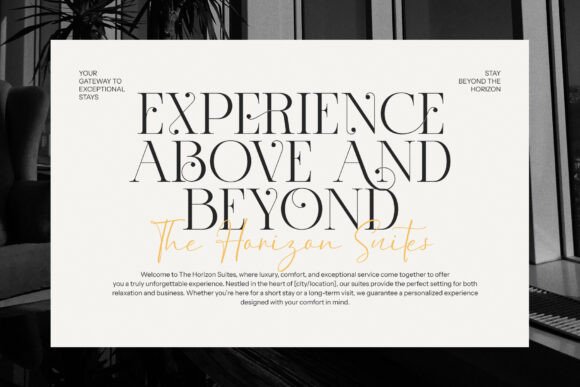
Introducing Frane Rhiger Font: The Epitome of Modern Sophistication and Timeless Elegance
In the world of typography, a font can make or break the visual appeal of a project. For designers seeking a typeface that embodies modern sophistication and timeless elegance, Frane Rhiger Font is an exceptional choice. This beautifully crafted serif font is designed to make your projects stand out with unparalleled style, making it perfect for luxury branding, high-end logos, and polished editorial layouts.
The Design Philosophy Behind Frane Rhiger
Frane Rhiger is more than just a font – it’s a masterclass in typographic design. Each letter is thoughtfully balanced, blending clean lines with subtle details to create a font that feels both refined and approachable. The design philosophy behind Frane Rhiger is centered around creating a typeface that exudes class and professionalism, while also being versatile enough to adapt to any medium.
One of the standout features of Frane Rhiger is its exquisite ligatures and graceful alternate forms. These elements add a layer of sophistication to any project, making it perfect for designers seeking to create high-end branding, logos, and editorial layouts. The ligatures and alternate forms also provide a level of customization, allowing designers to tailor the font to their specific needs.
The Characteristics of Frane Rhiger Font
So, what makes Frane Rhiger Font so unique? Here are some of its key characteristics:
- Serif Font: Frane Rhiger is a serif font, which means it features small lines or flourishes at the ends of the letters. This gives the font a classic, timeless feel that’s perfect for luxury branding and editorial layouts.
- Exquisite Ligatures: The ligatures in Frane Rhiger are truly exquisite, adding a level of sophistication to any project.
- Graceful Alternate Forms: The alternate forms in Frane Rhiger provide a level of customization, allowing designers to tailor the font to their specific needs.
- Clean Lines: The clean lines in Frane Rhiger create a sense of modernity and sophistication, making it perfect for high-end branding and logos.
- Subtle Details: The subtle details in Frane Rhiger add a level of depth and complexity to the font, making it perfect for polished editorial layouts.
Perfect for Luxury Branding and Editorial Layouts
Frane Rhiger Font is perfect for luxury branding, high-end logos, and polished editorial layouts. The font’s classic, timeless feel makes it ideal for designers seeking to create sophisticated and elegant designs. Whether you’re working on a luxury brand, a high-end product, or a polished editorial layout, Frane Rhiger is a versatile choice that adapts effortlessly to any medium.
Some examples of projects that Frane Rhiger is well-suited for include:
- Luxury Branding: Frane Rhiger is perfect for luxury brands seeking to create a sophisticated and elegant visual identity.
- High-End Logos: The font’s clean lines and subtle details make it perfect for high-end logos that require a level of sophistication and elegance.
- Polished Editorial Layouts: Frane Rhiger is ideal for polished editorial layouts, such as magazine spreads, book covers, and other publications.
- Product Packaging: The font’s versatility makes it perfect for product packaging, where a level of sophistication and elegance is required.
- Boutique Branding: Frane Rhiger is perfect for boutique brands seeking to create a unique and elegant visual identity.
Why Choose Frane Rhiger Font?
So, why choose Frane Rhiger Font for your next project? Here are just a few reasons:
- Unparalleled Style: Frane Rhiger offers unparalleled style and sophistication, making it perfect for designers seeking to create high-end branding, logos, and editorial layouts.
- Versatility: The font’s versatility makes it adaptable to any medium, from print to digital.
- Elegance: Frane Rhiger exudes elegance and sophistication, making it perfect for luxury branding and editorial layouts.
- Professionalism: The font’s clean lines and subtle details create a sense of professionalism, making it perfect for high-end branding and logos.
In conclusion, Frane Rhiger Font is a beautifully crafted typeface that embodies modern sophistication and timeless elegance. With its exquisite ligatures and graceful alternate forms, this serif font is designed to make your projects stand out with unparalleled style. Whether you’re working on luxury branding, high-end logos, polished editorial layouts, or product packaging, Frane Rhiger is a versatile choice that adapts effortlessly to any medium while maintaining its stunning visual appeal.